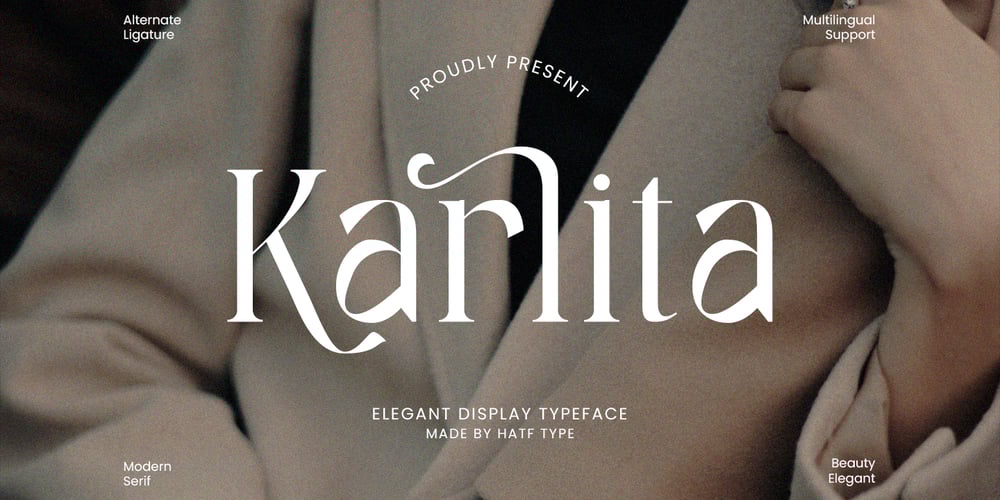
Karlita Font Family was designed by Asep Rendi and published by Hatftype. Karlita contains 1 styles and family package options. Karlita is an elegant and classy typeface in the display typeface category. With its unique and artistic designs, Karlita combines modern elements and classic touches to create a charming and alluring look. Each letter is carefully designed to convey elegance and luxury, with well-proportioned proportions and refined details. The serifs used in Karlita provide a traditional touch that harmonizes well with its modern character, creating a stunning harmony in every use. From striking titles to eye-catching logo designs, Karlita brings unmatched luxury and elegance to every look.